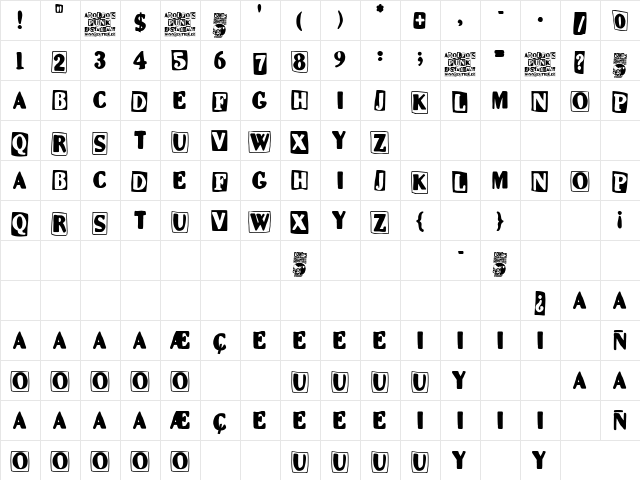
Adolfo's Punk Restuarant Regular
Design Context for Adolfo's Punk Restuarant Typeface
Adolfo's Punk Restuarant is a composed and adaptable typeface that performs quietly and consistently across a wide range of design contexts.